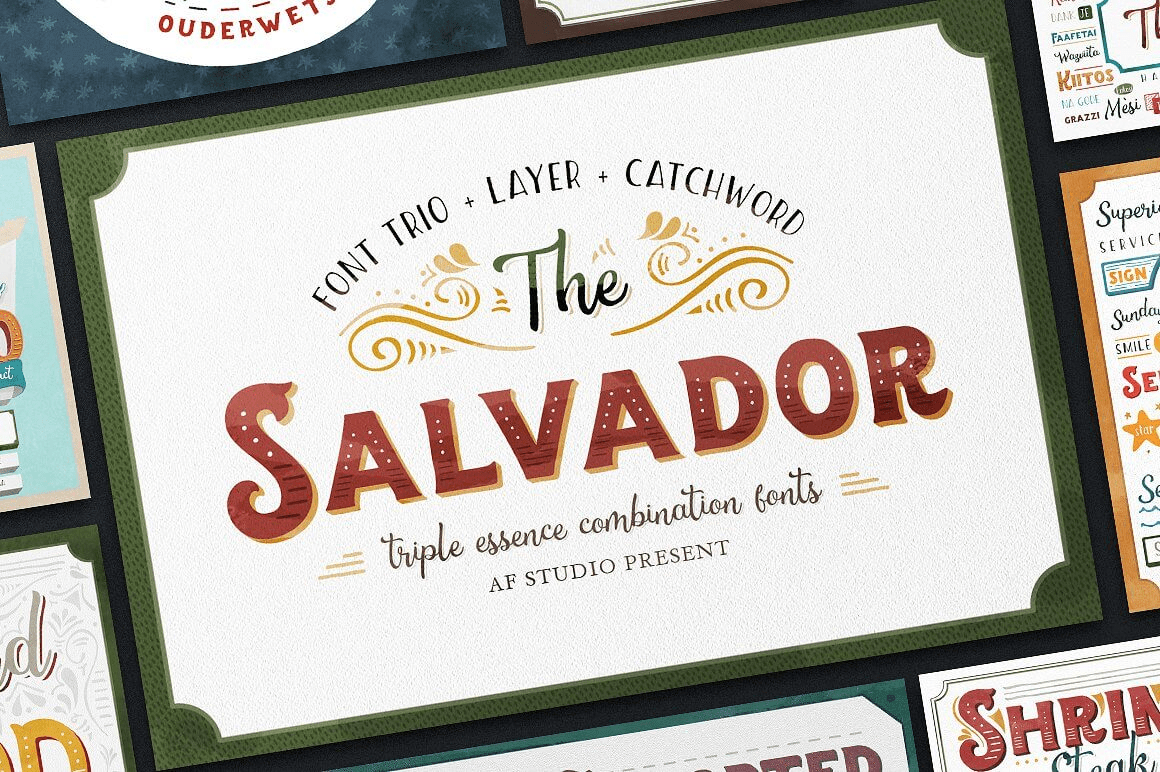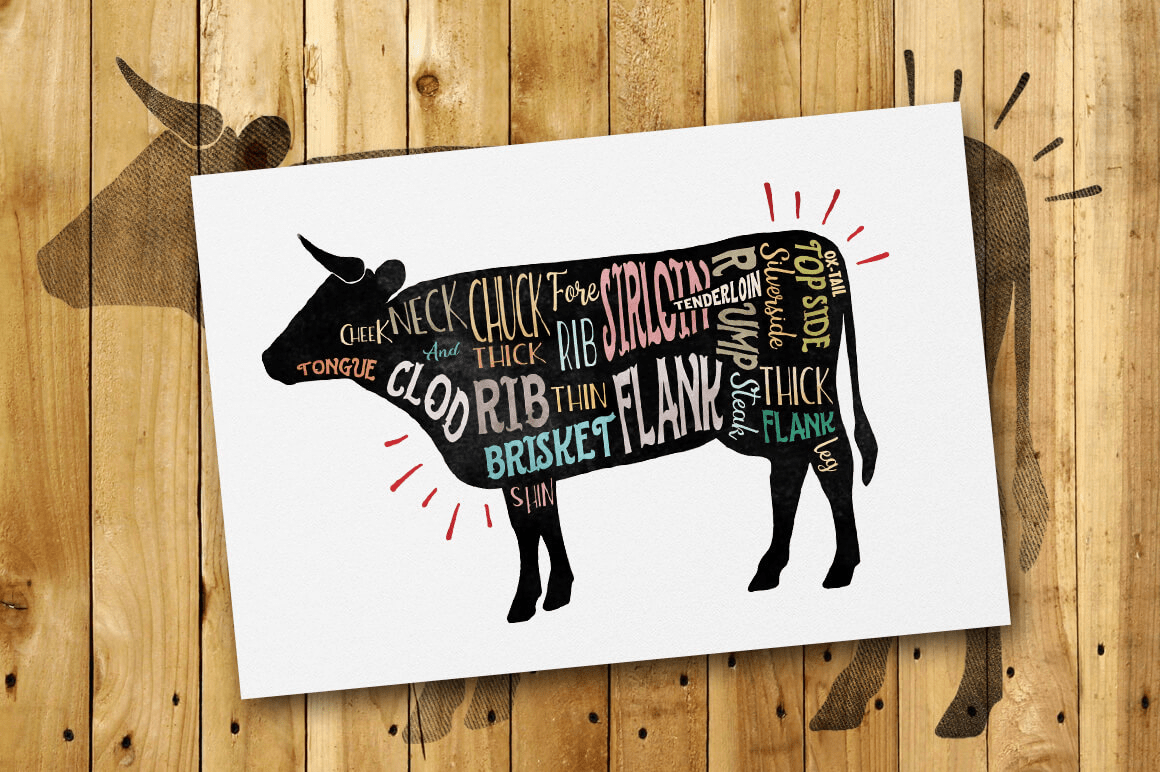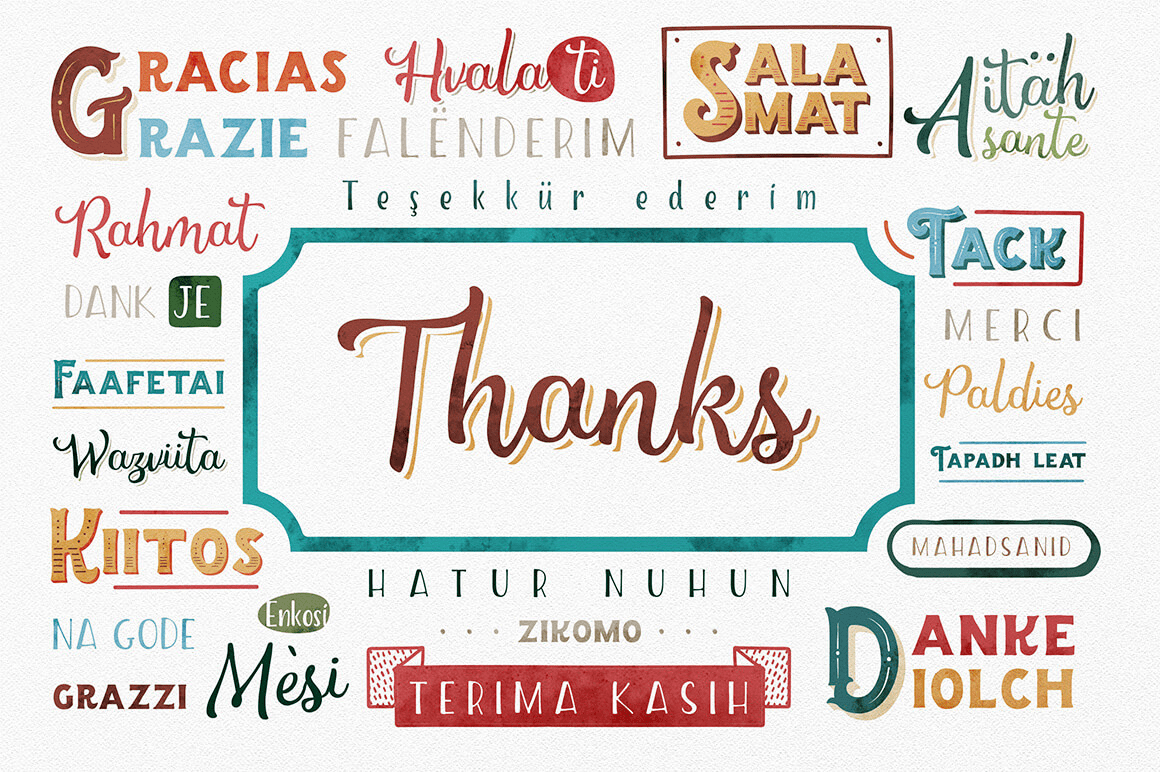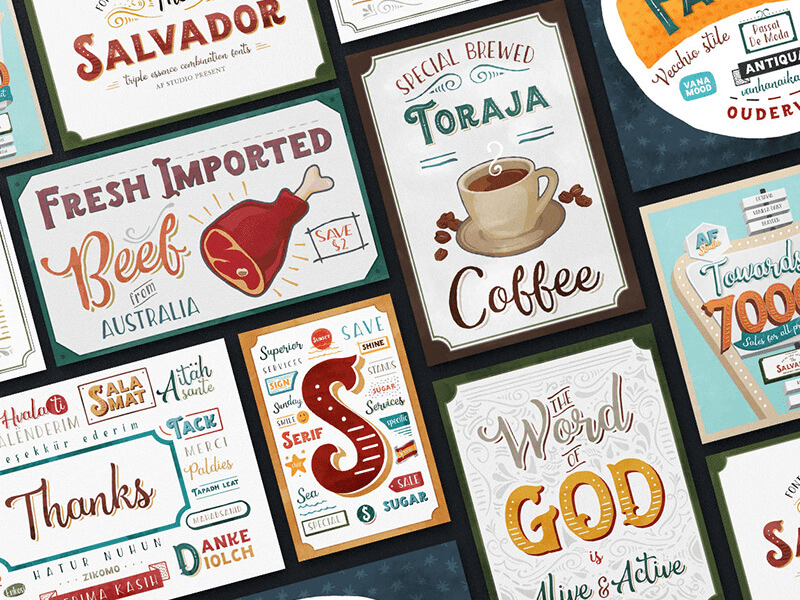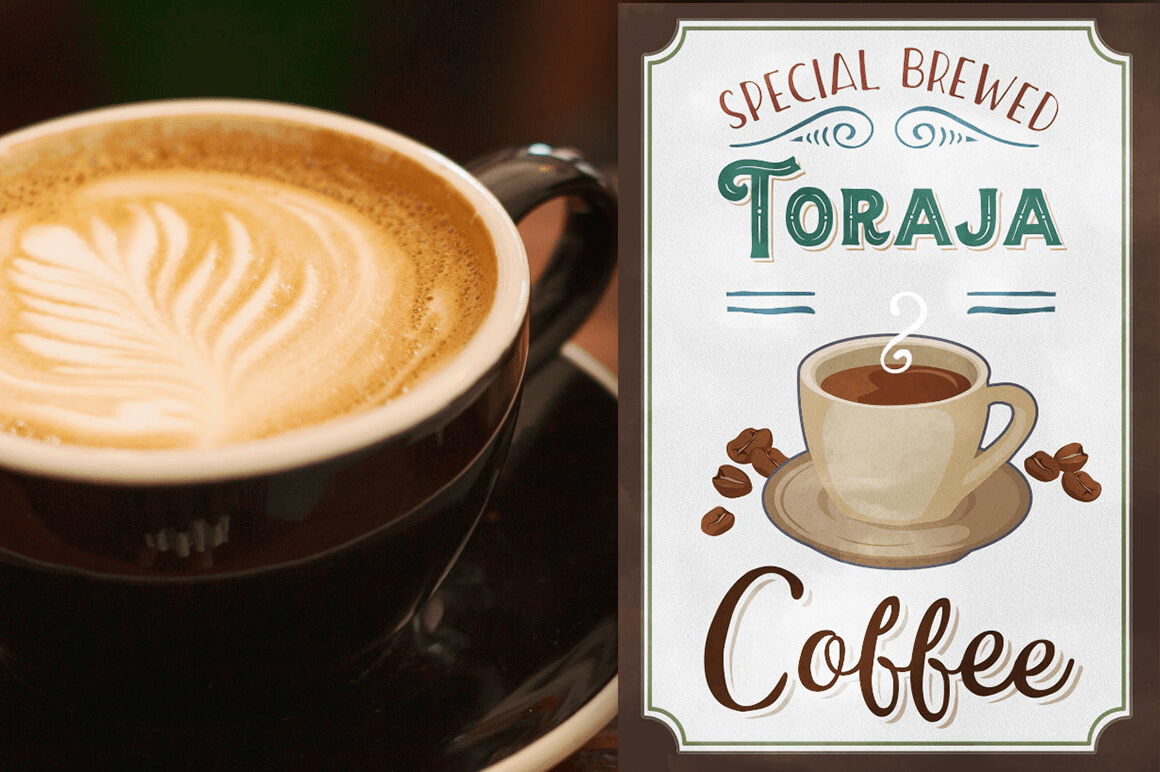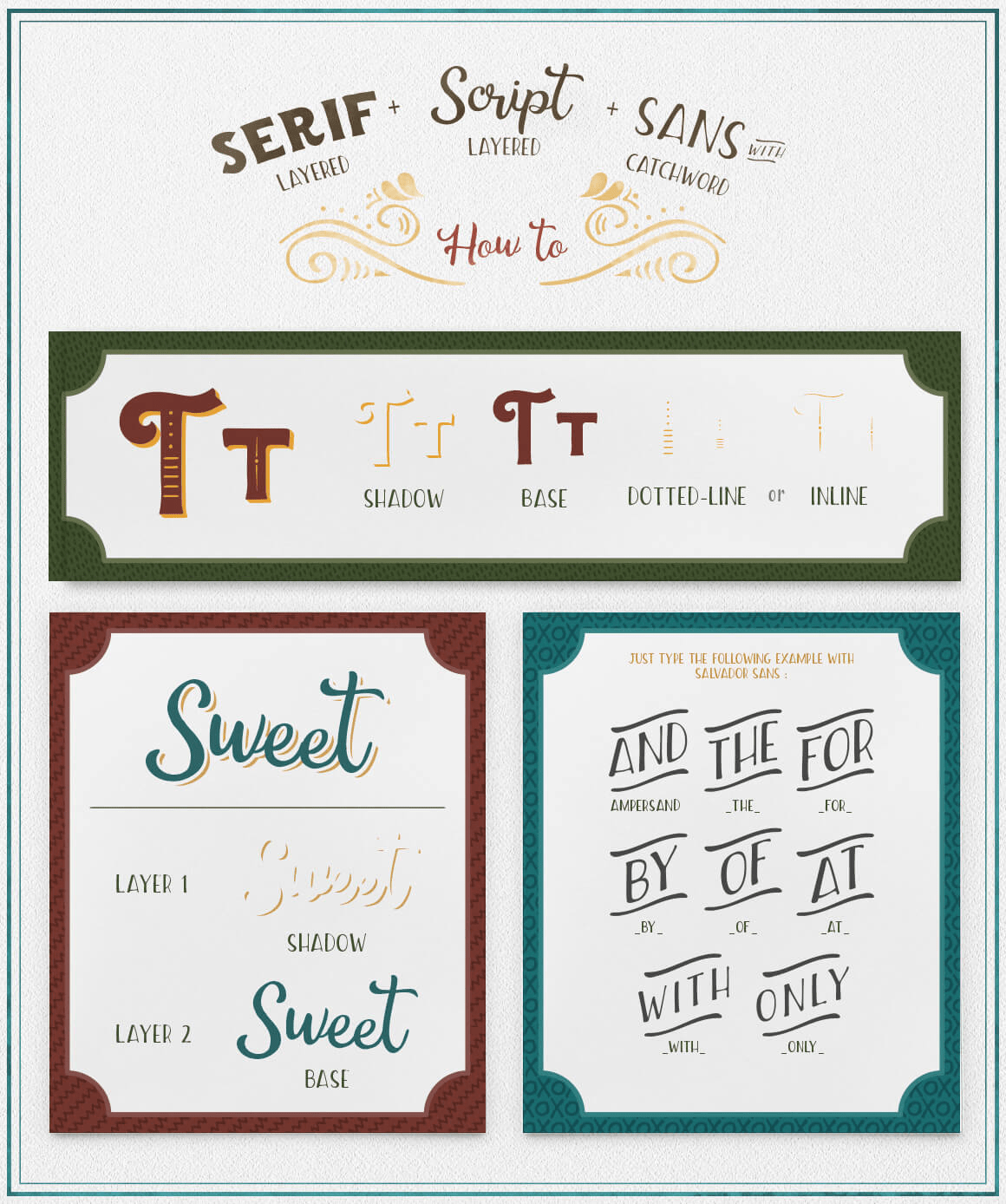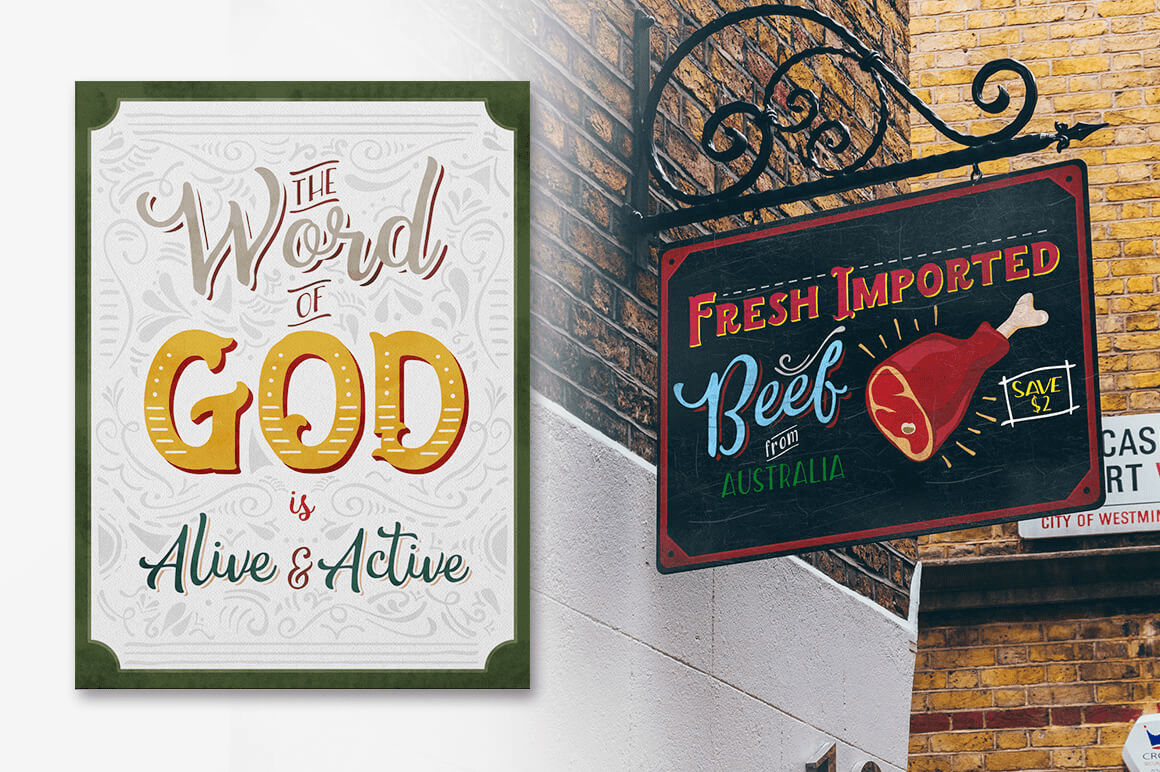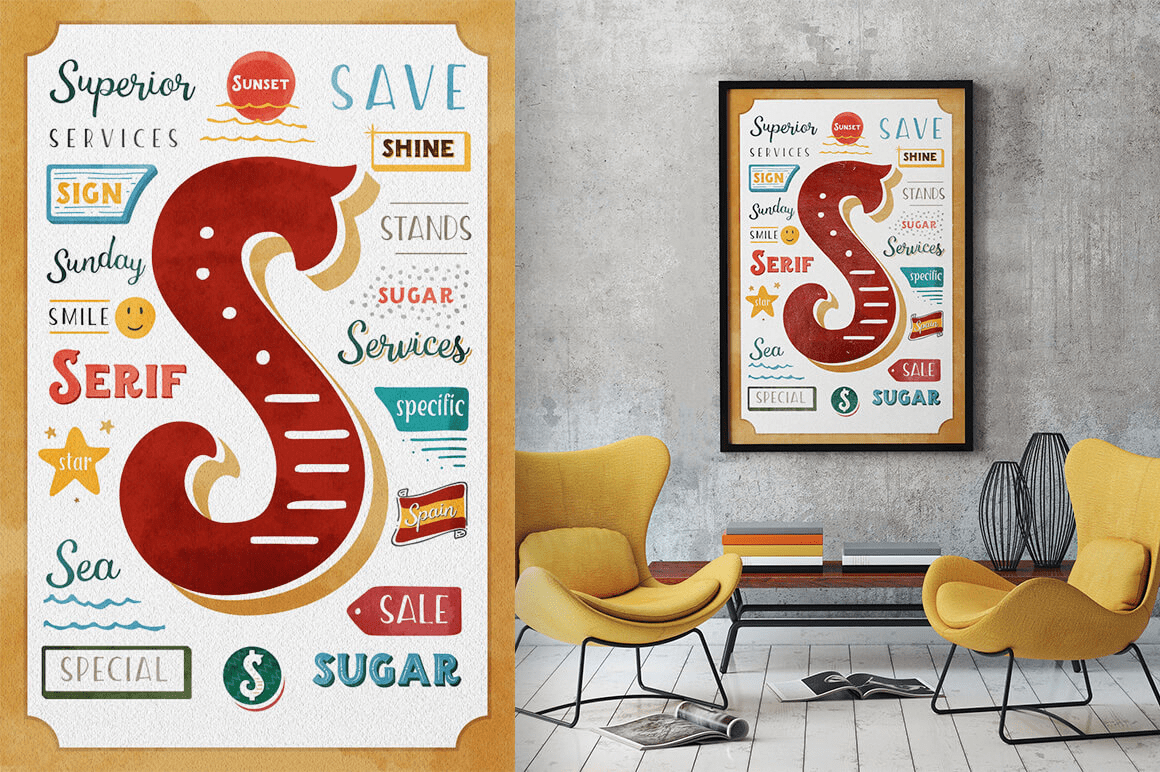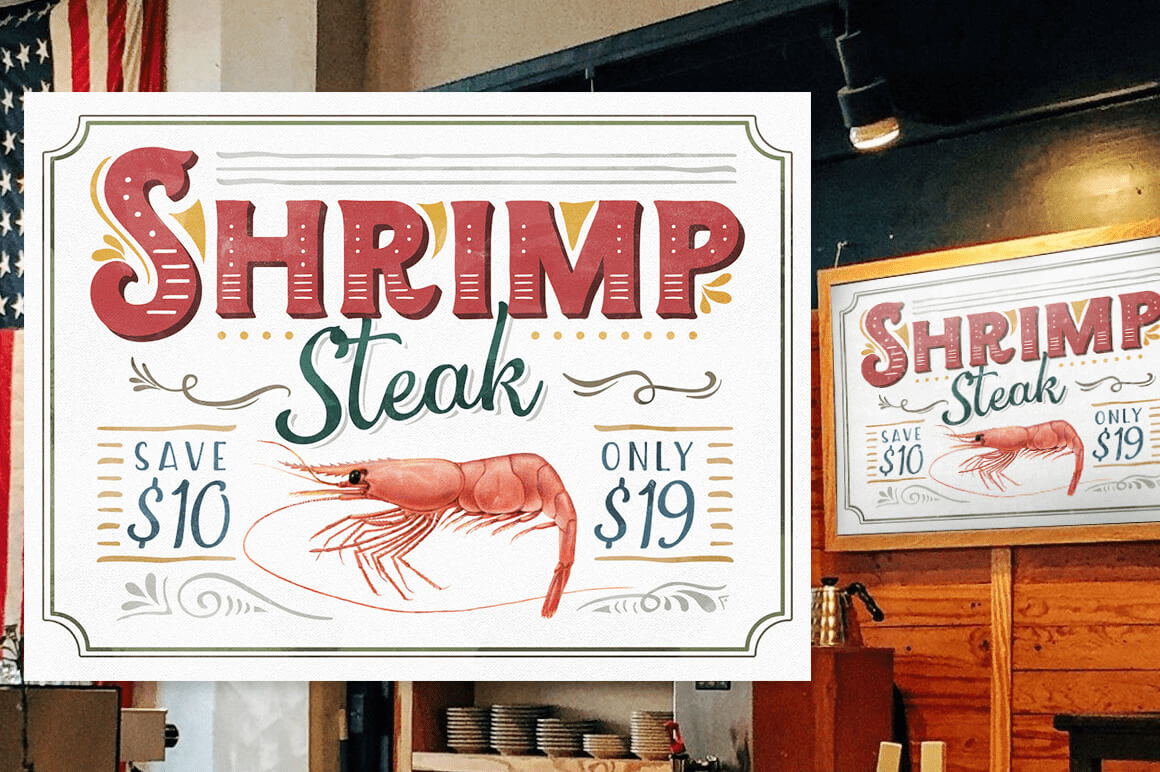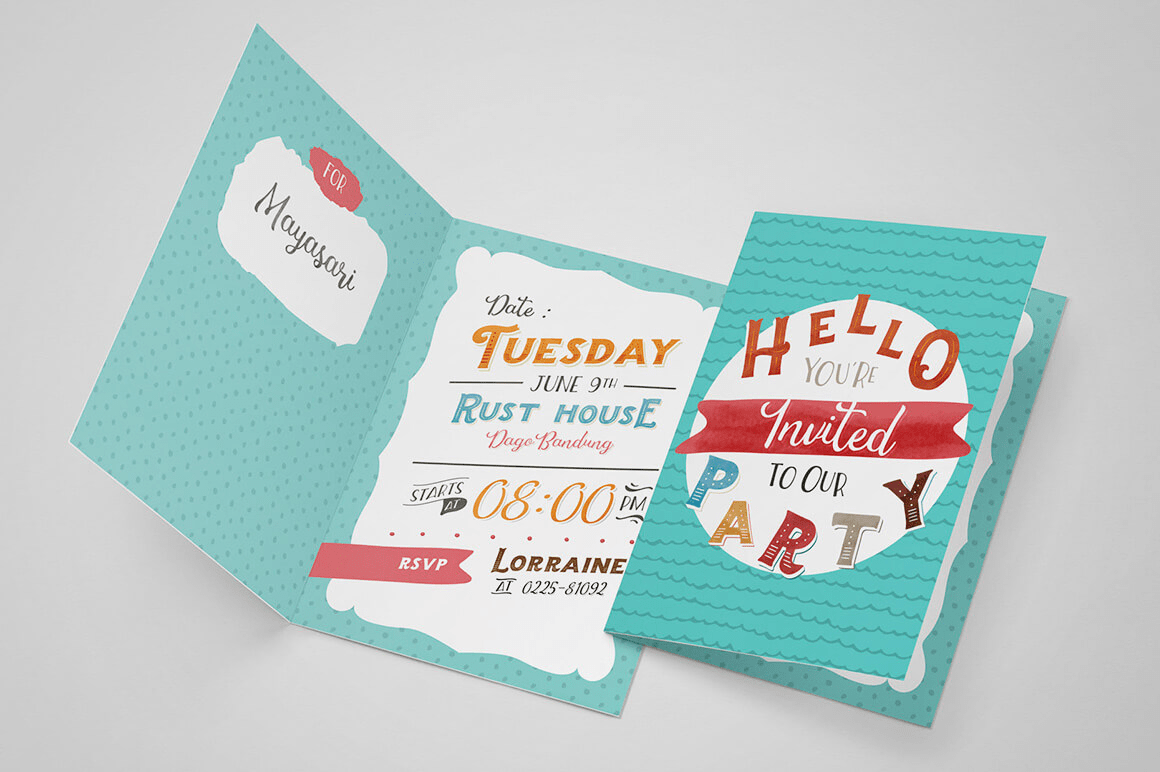
The Salvador
Font Family by AF Studio
The Salvador is a trio of combination fonts inspired by the Lettering Artist who made the unique combination of hand-lettering type style and the perfect color chosen.
- The Salvador Serif comes with 4 layers: Base, Shadow, and Inline or Dotted Inline. Inline and Dotted Inline are similar style, just choose one which is the best for you.
- The Salvador Script also comes with layer: Base and Shadow. for making the style more life.
- The Salvador Condensed I put it with catchword to complete the needs for combination fonts. to use it just type with underscore(word)underscore. for example type THE using Salvador Condensed. available word just click on the Display no 2.
Excess use for layered fonts is that, you can choose different color on every layer of the fonts without needing add some type effects.